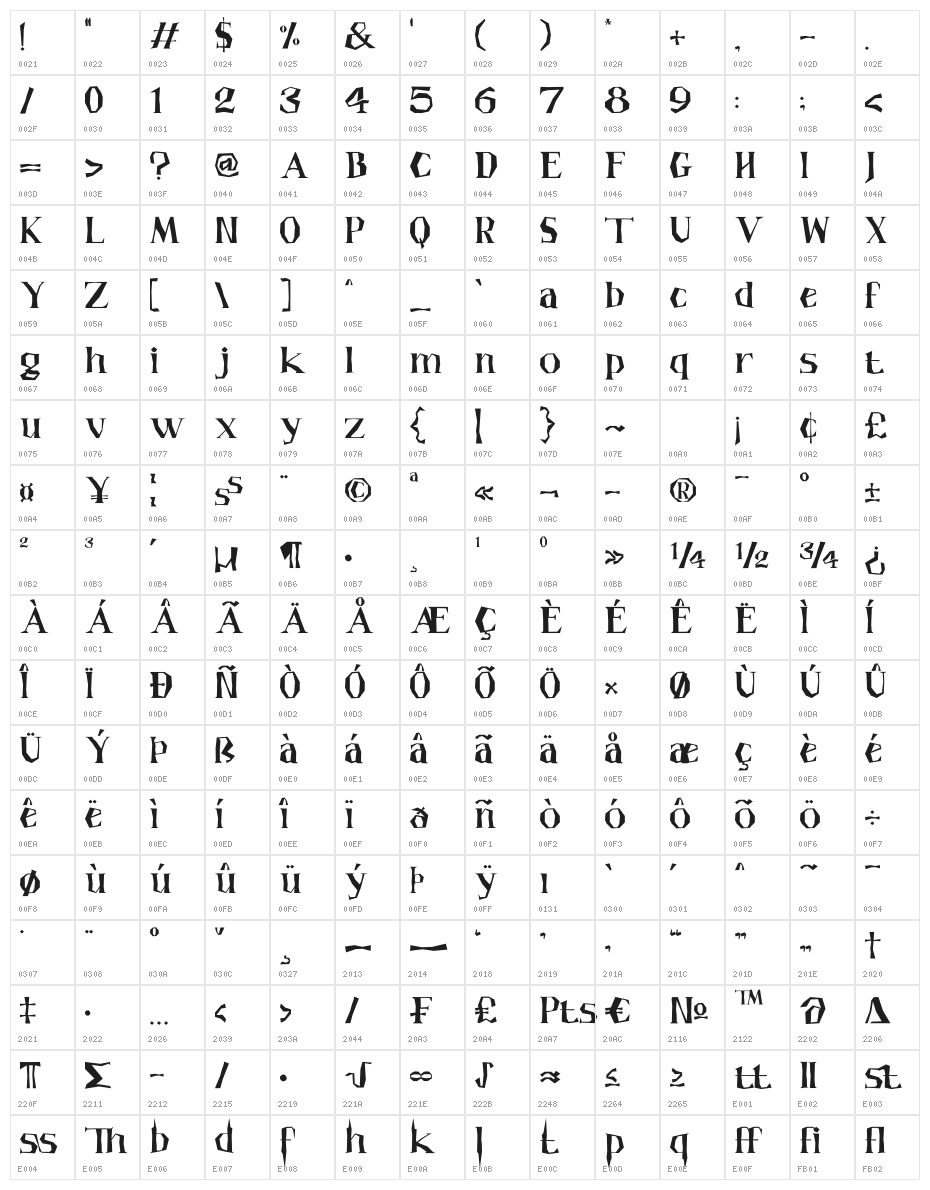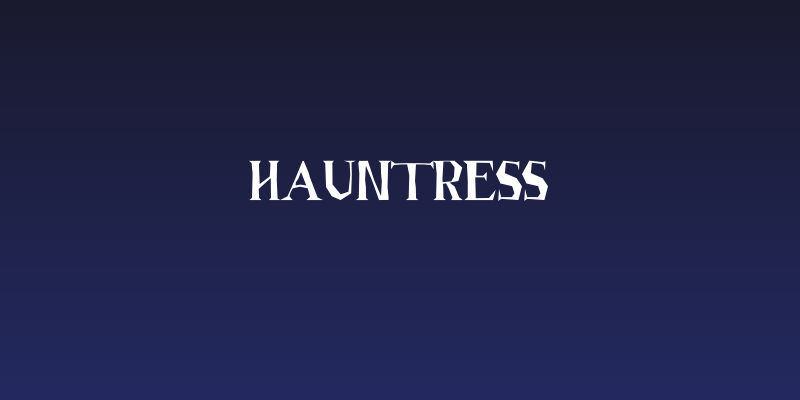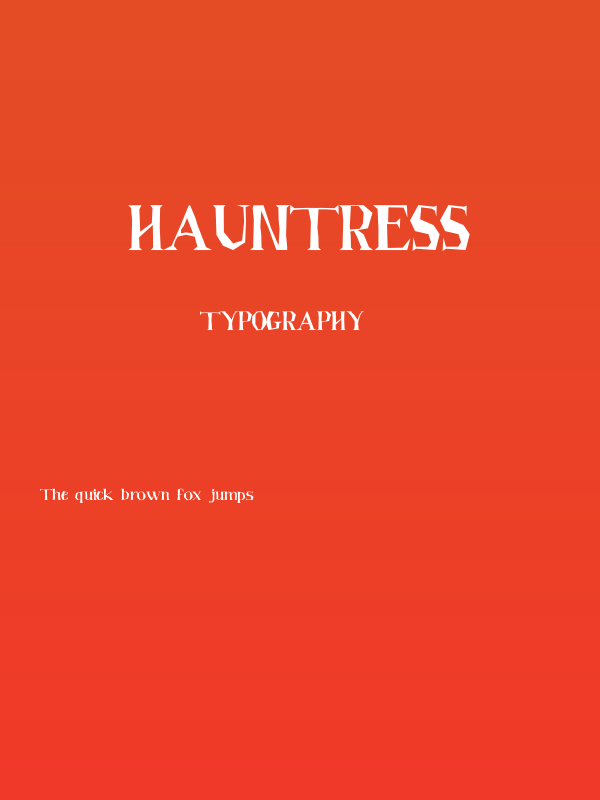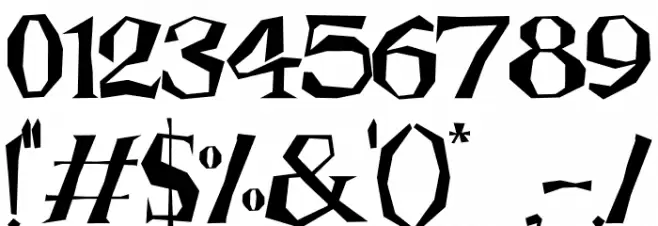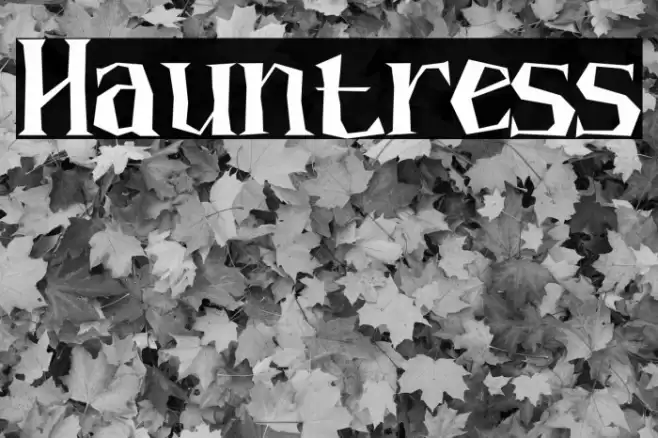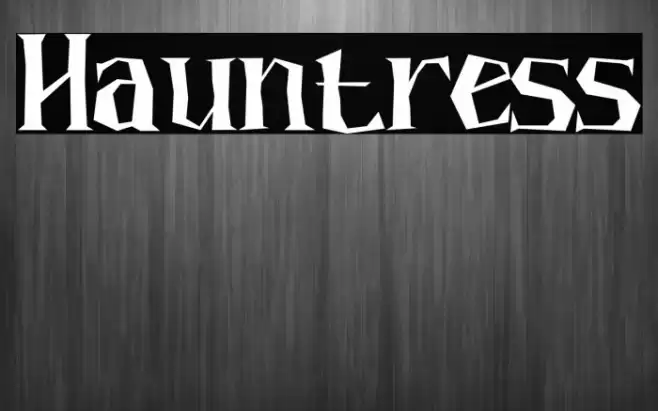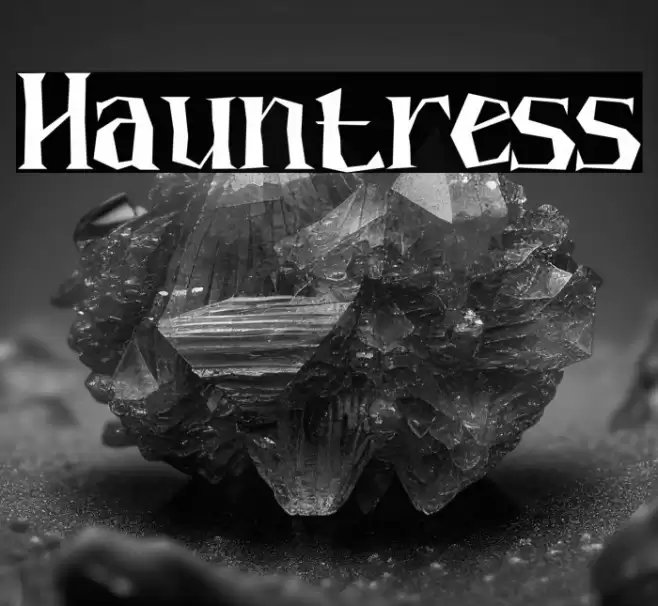
Hauntress Font
Hauntress Description
This font features a bold and angular design, reminiscent of gothic or medieval styles. The characters are sharply defined with pointed edges and a slightly irregular form, giving it a hand-crafted appearance. The uppercase letters are particularly striking, with a strong presence and dramatic flair. Lowercase letters maintain the same angular aesthetic, ensuring consistency throughout the typeface. Numbers and special characters follow the same design principles, making them easily recognizable while maintaining the overall theme. This font's unique style makes it ideal for projects that require a bold and distinctive look.
| Overall Style | Gothic, Medieval |
| Proposed Projects | Ideal for horror-themed graphics, Halloween posters, video game titles, or any project needing a dramatic and unique typeface. |